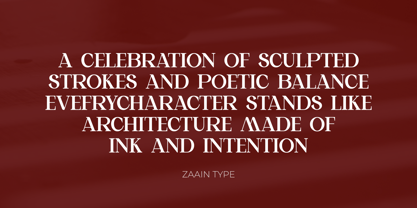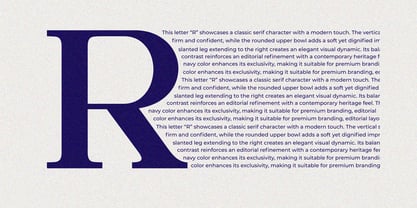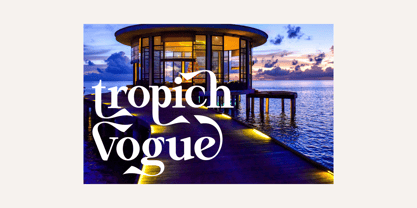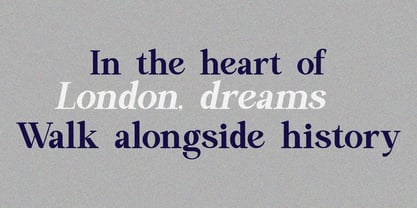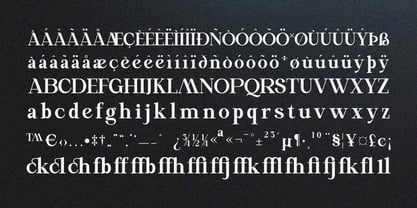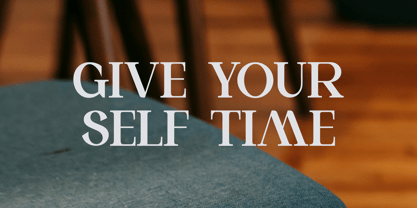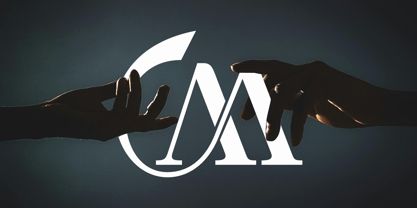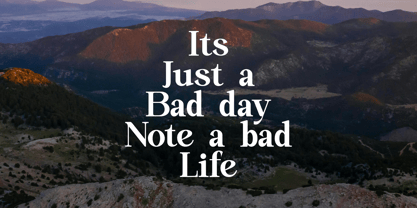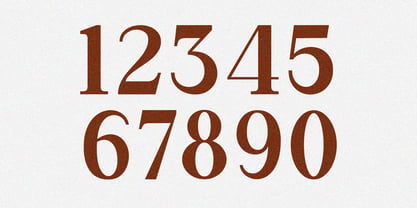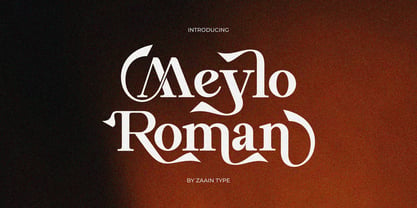
Meylo Roman
by Zaain Type
The Meylo Roman Font Family was designed by Ju Naen and published by Zaain Type. Meylo Roman contains 2 styles and family package options. More about this family
Meylo Roman is a modern serif typeface that blends classical character with a clean, contemporary touch. Designed with balanced proportions and refined thick–thin contrast, Meylo Roman delivers a strong editorial presence while maintaining excellent readability. Its well-crafted serifs and calm letter structure create a sophisticated feel, making it ideal for premium branding projects, magazines, fashion logos, product packaging, and editorial headlines. Each character is carefully designed to convey an exclusive impression while remaining versatile across various sizes and media. Meylo Roman performs beautifully in both print and digital applications, making it a perfect choice for designers seeking a modern serif with an elegant and professional personality